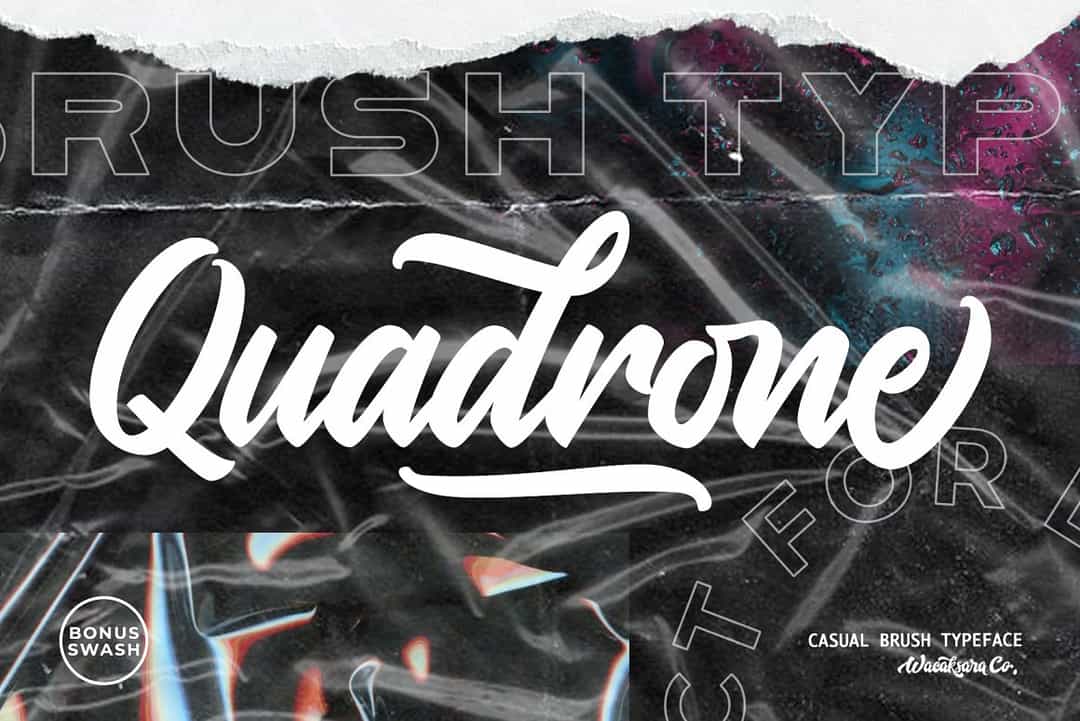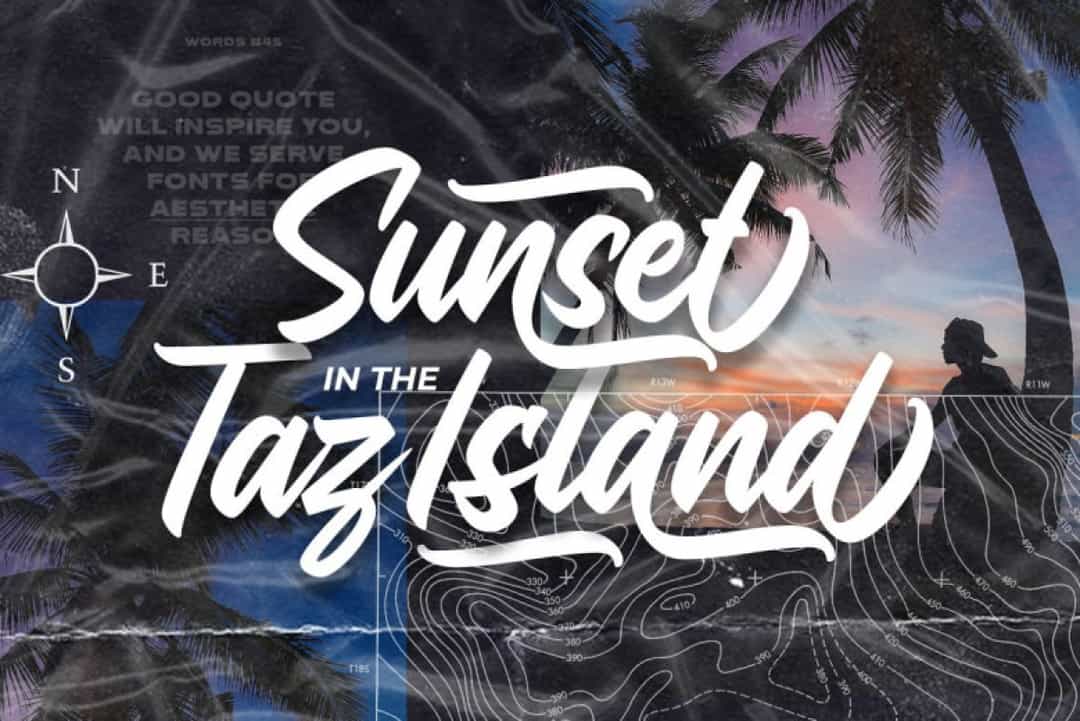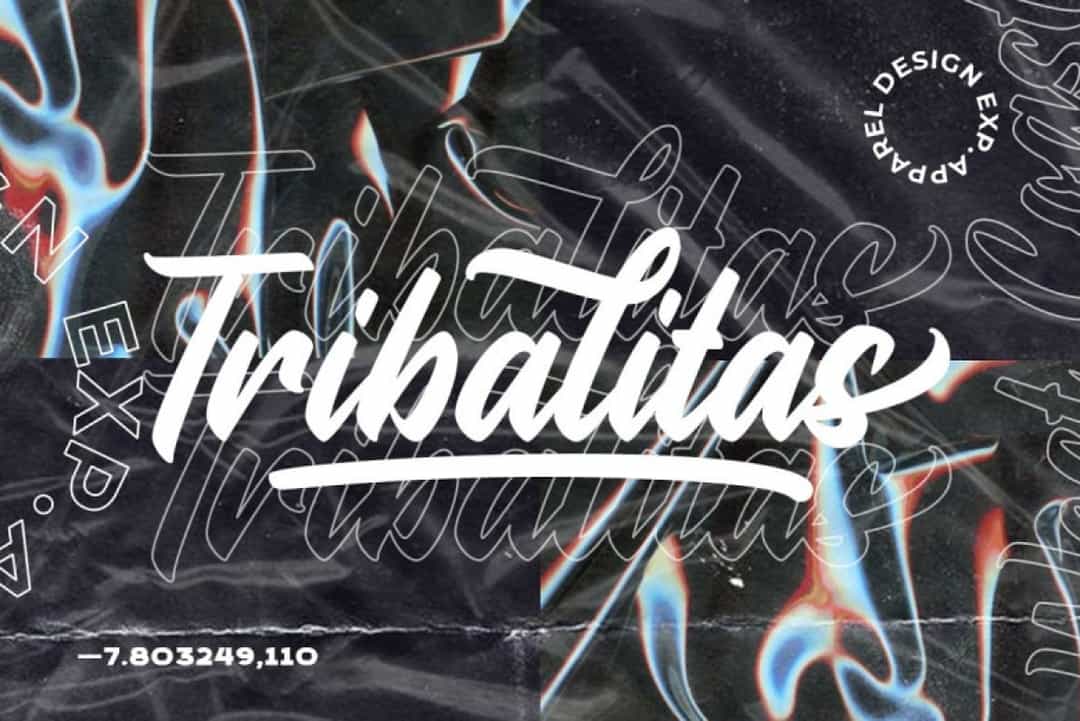
The Quadrone font is a handwritten script style font inspired by urban fashion trends. Perfect for use on logotype printed invitations, quotes cards, packaging for products as well as headers, Letterhead, Label design projects among others!